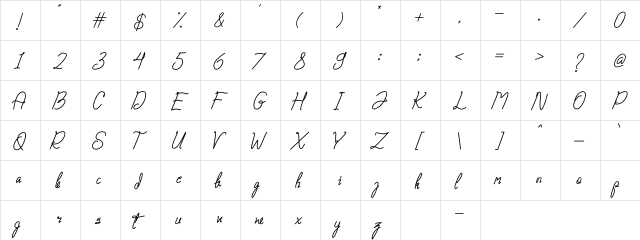
Zamilla Regular
| Designer | Jada Akbal |
Design Context for Zamilla Typeface
Zamilla is a composed and adaptable typeface that performs quietly and consistently across a wide range of design contexts.